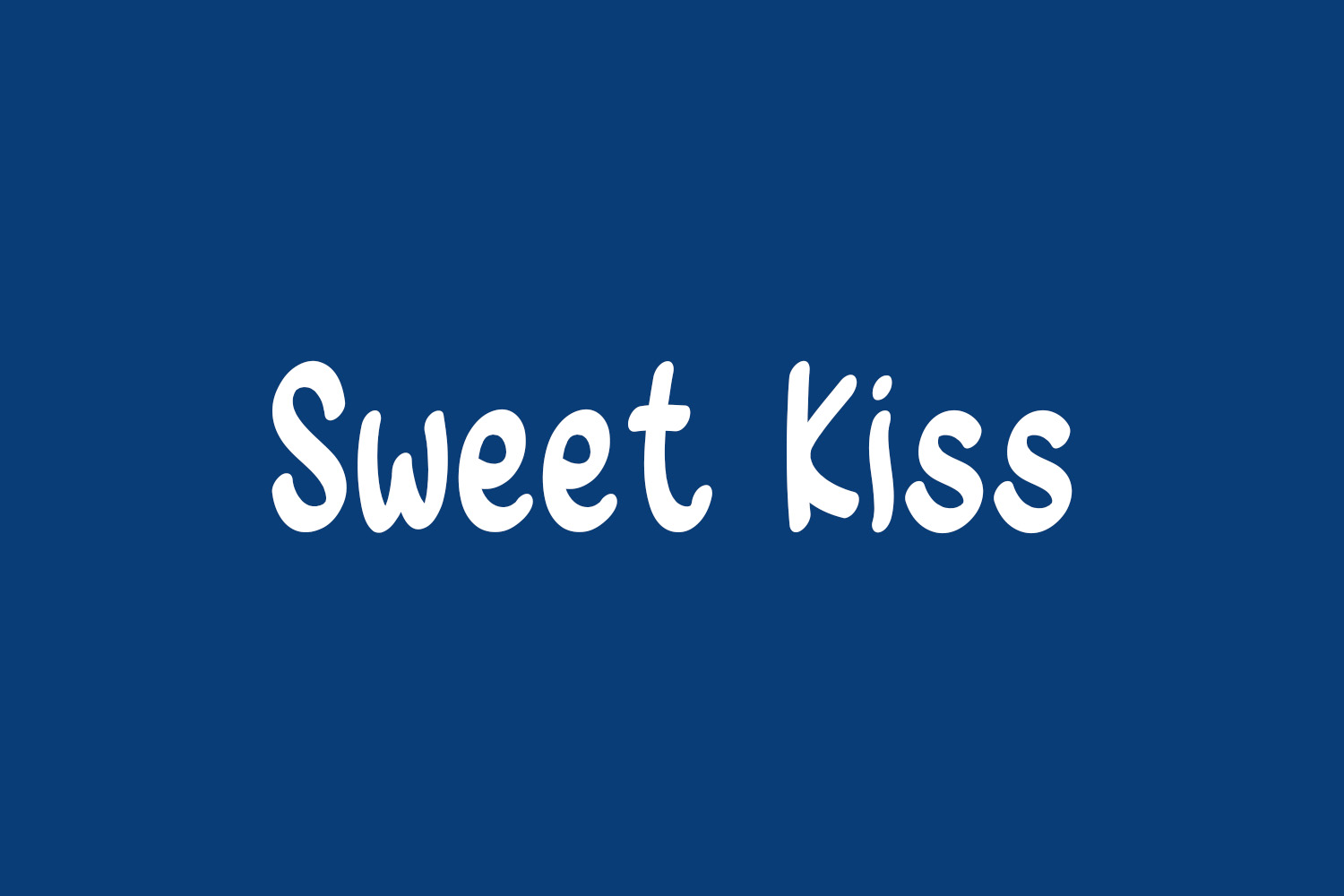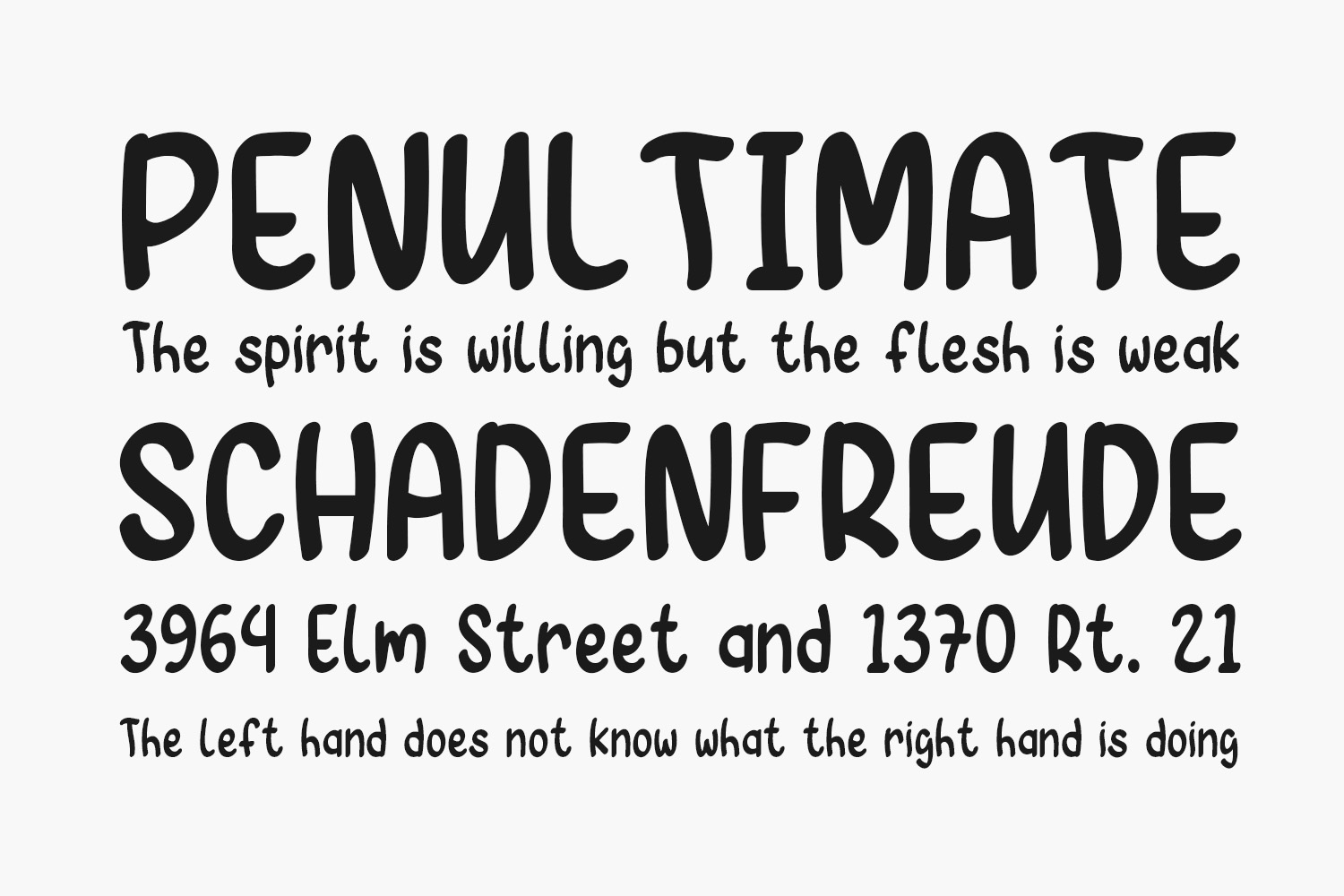
Sweet Kiss Free Font is a bold and simple handwritten font. Use it to make your ideas even more realistic and create spectacular designs. Sweet Kiss Free Font was designed by Morning Time Studio and is free for personal use only. Please purchase the full version for commercial use.
Designed by Morning Time Studio